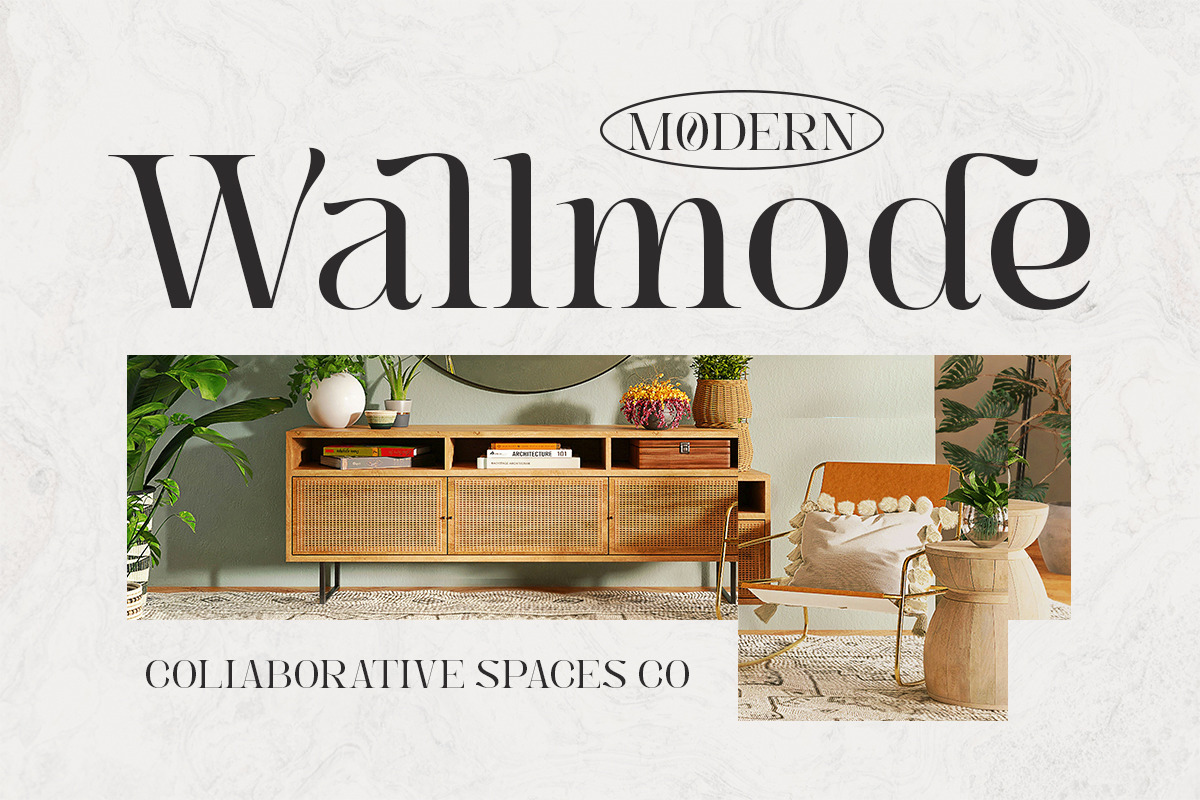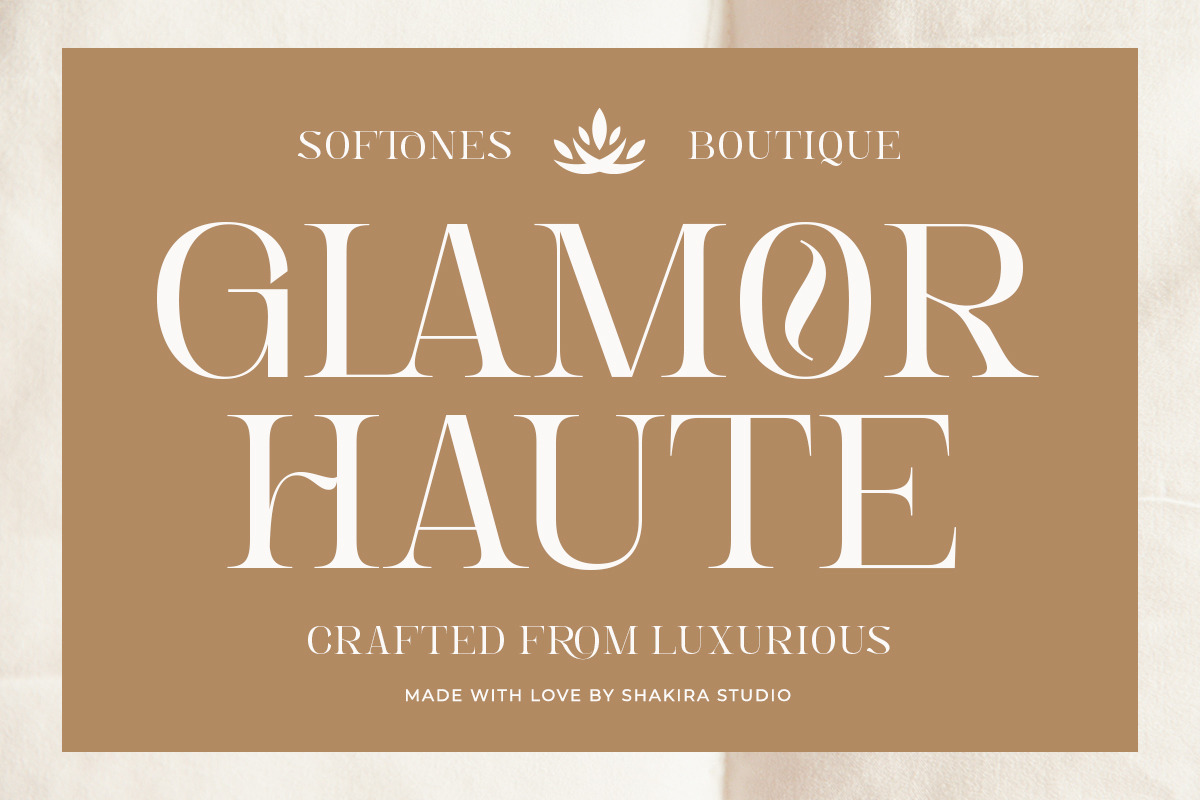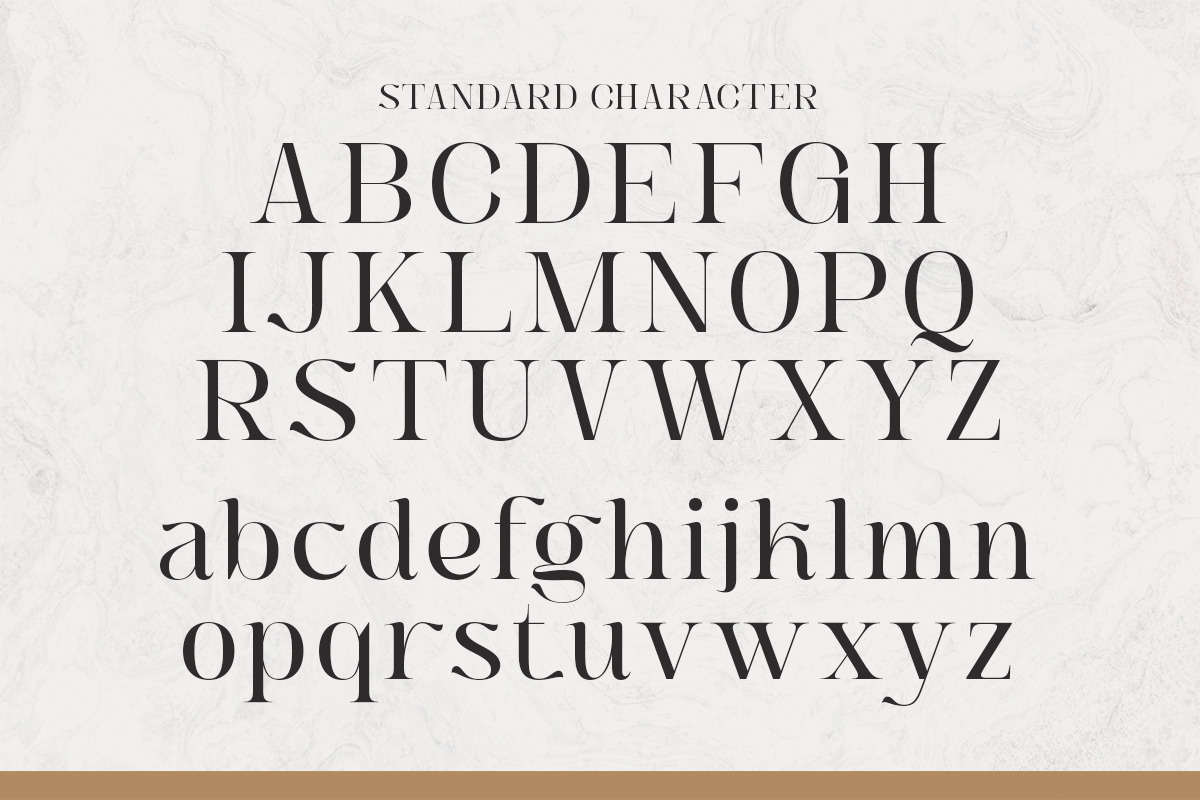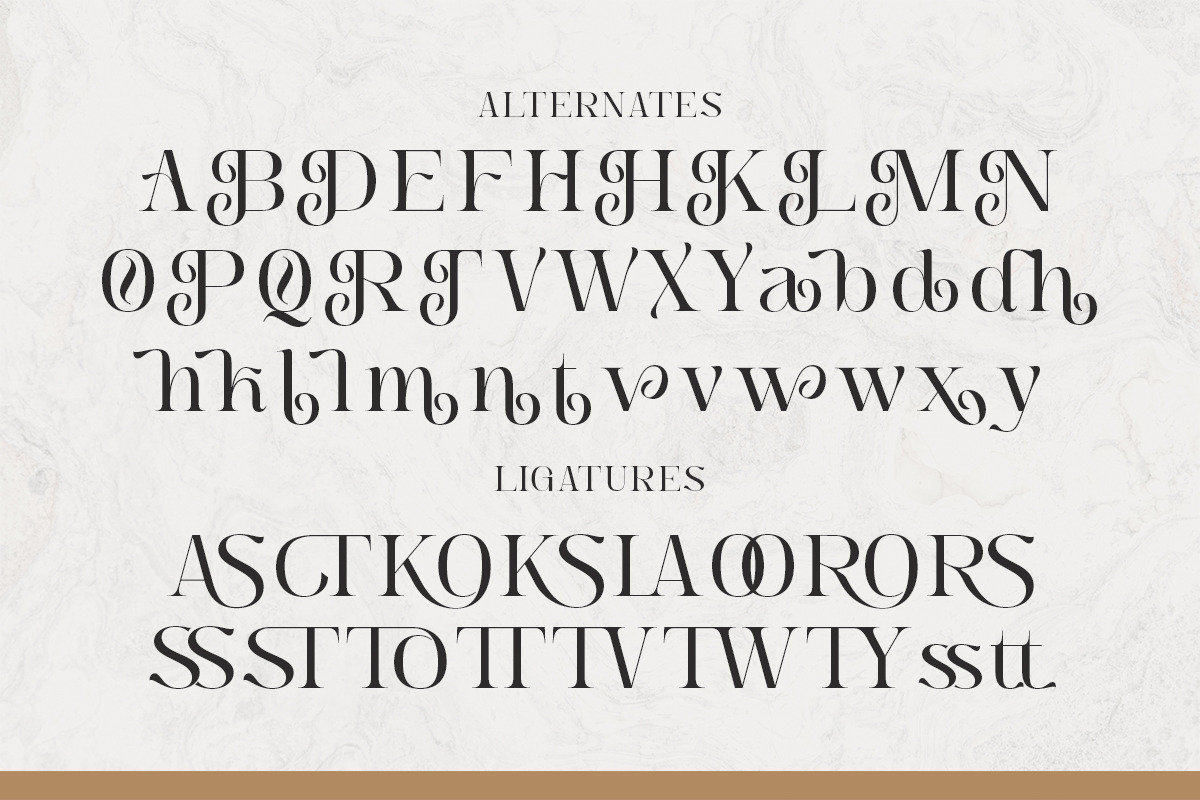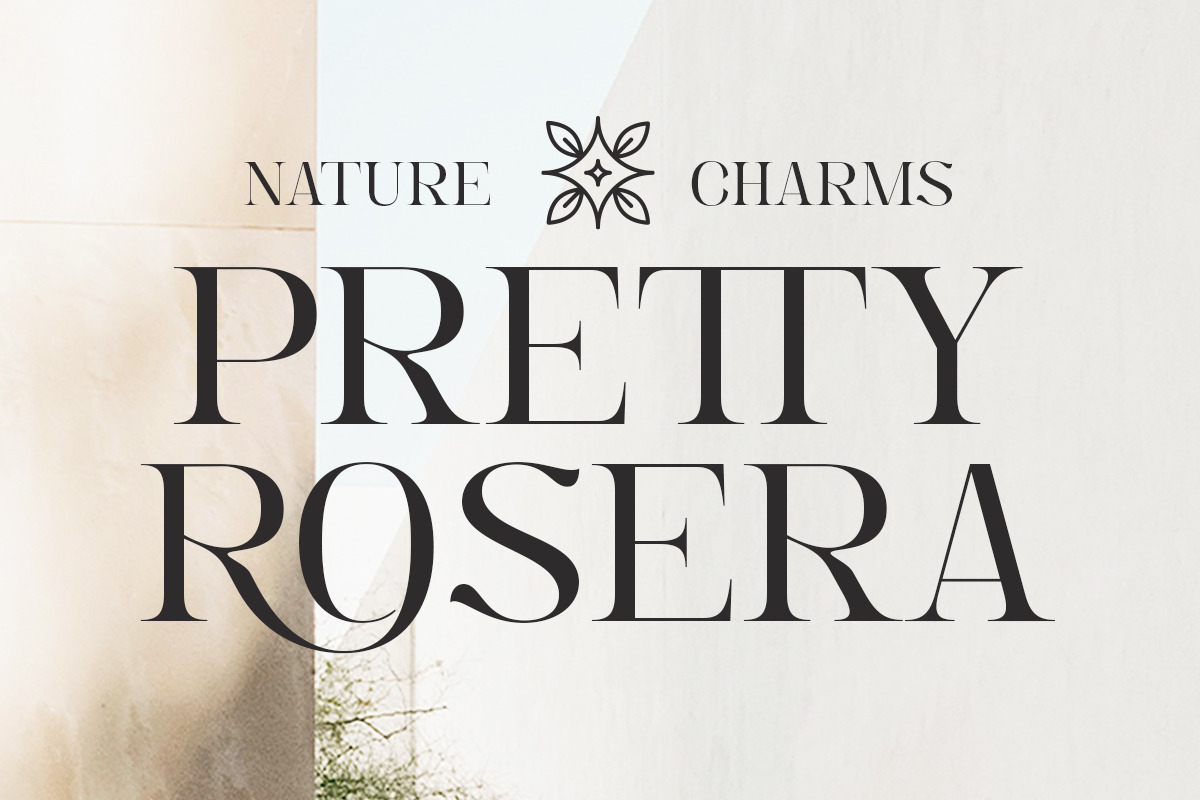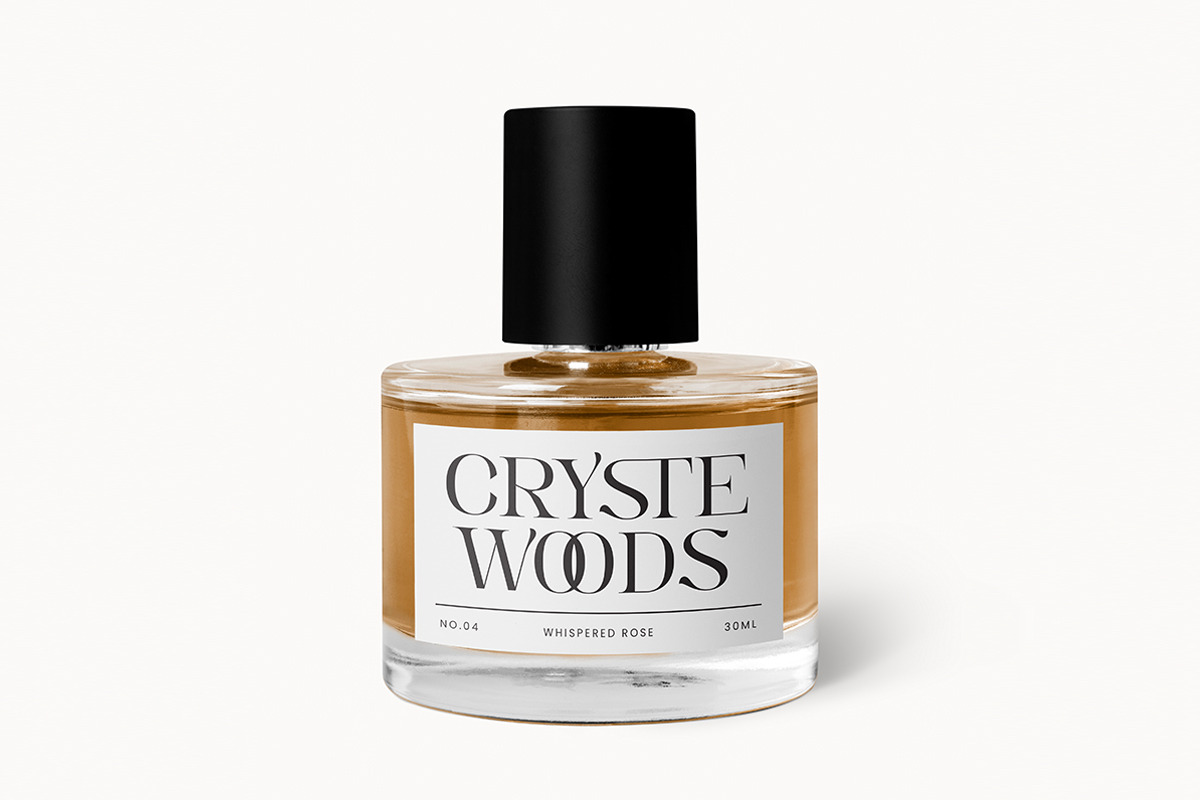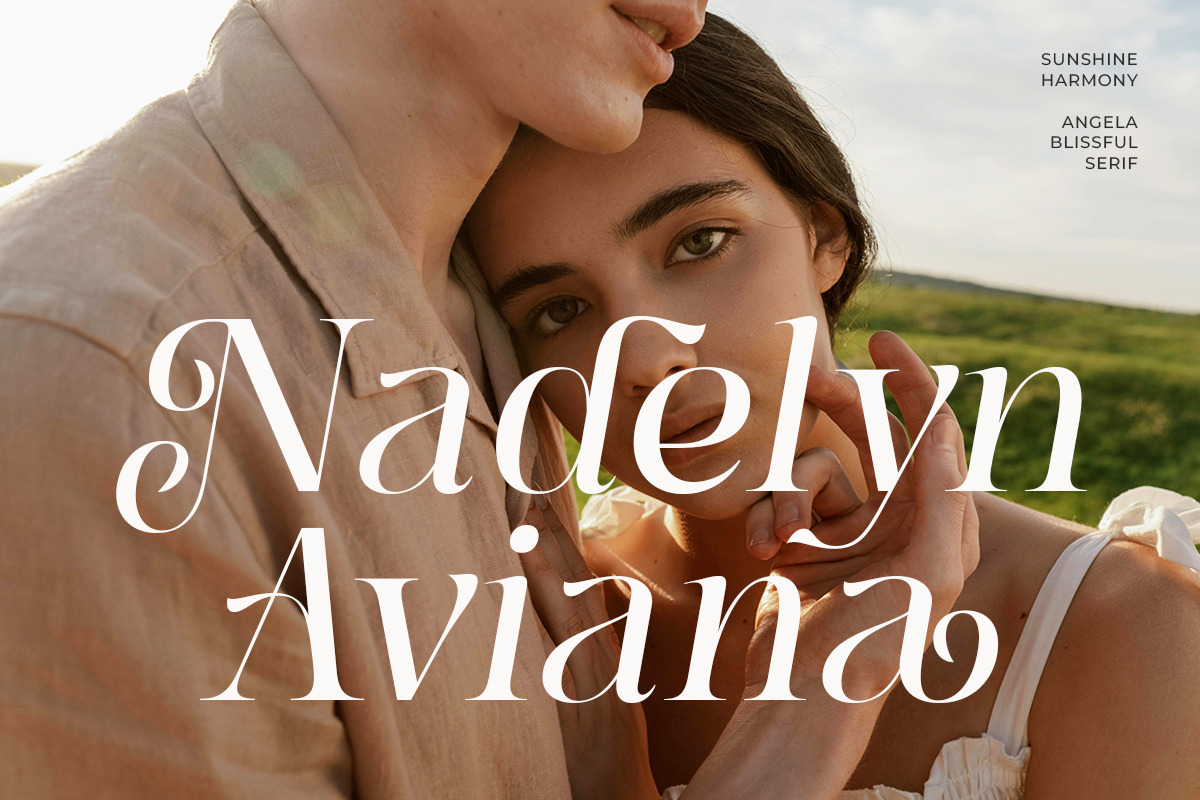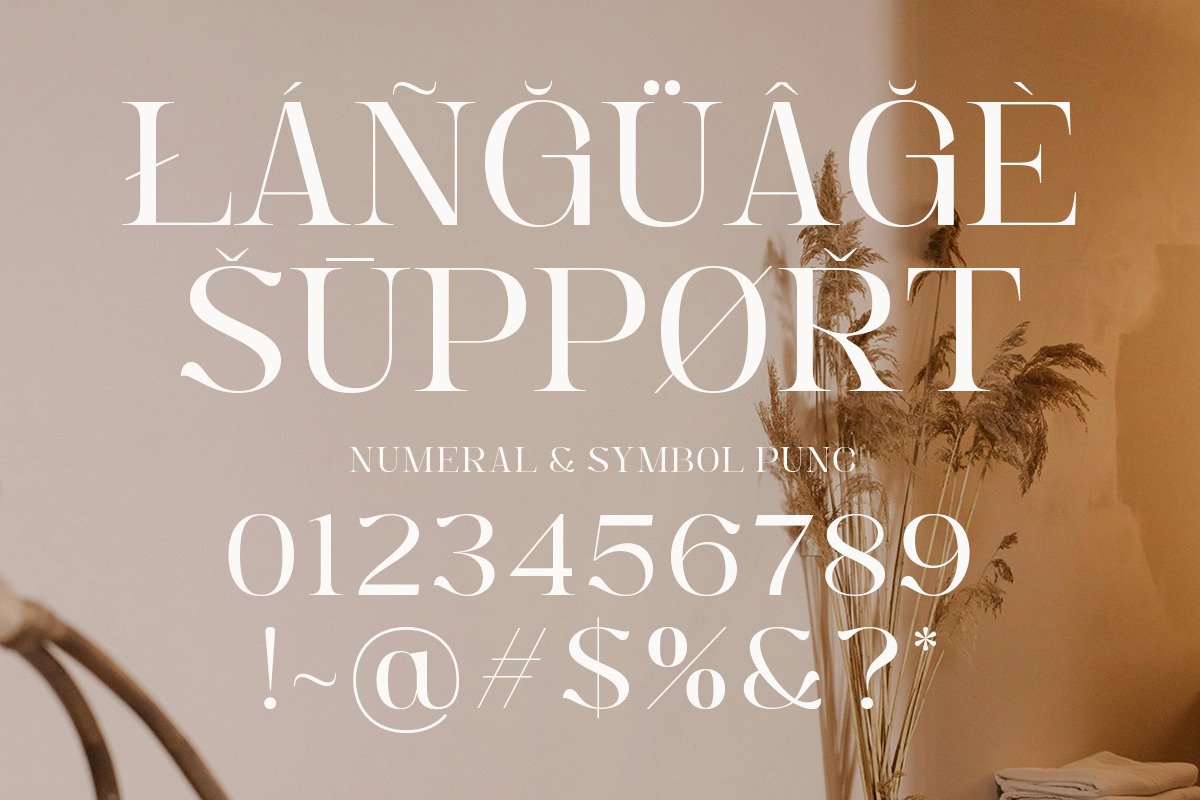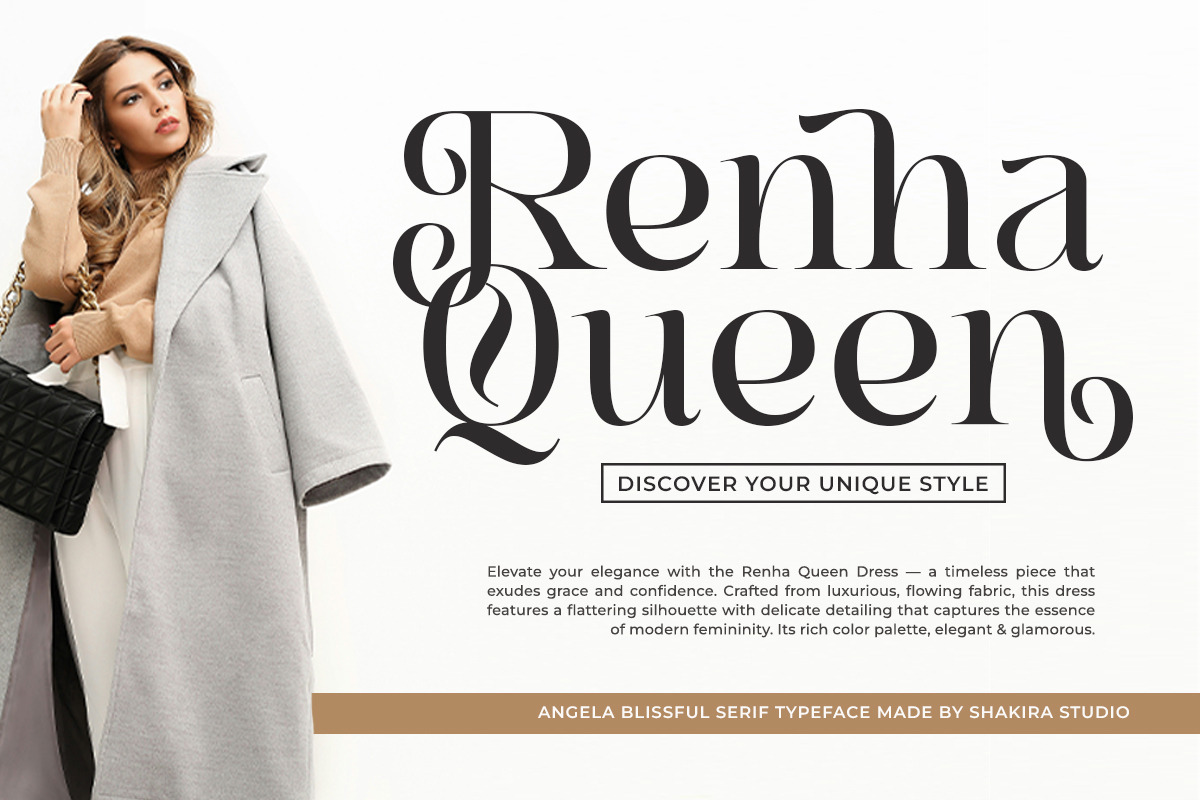
Angela Blissful - Modern Elegant
Angela Blissful is a modern decorative serif font that merges beauty and sophistication in one exquisite design.
Crafted with stylish alternates and delicate ligatures, this typeface exudes feminine charm and professional luxury. It’s a perfect fit for branding projects, upscale packaging, wedding designs, editorials, and any creative direction that seeks timeless elegance.
Available in both Regular and Italic versions, Angela Blissful brings a captivating aesthetic with every letter.
- Punctuation & numerals
- Elegant stylistic alternates
- Unique ligatures
- Regular & Italic styles
- Luxury brand identity
- Wedding invitations & stationery
- Editorial & magazine headers
- Fashion campaigns & lookbooks
- Elegant packaging & product design
- Feminine social media design
Let Angela Blissful speak with poise and power in your next masterpiece.